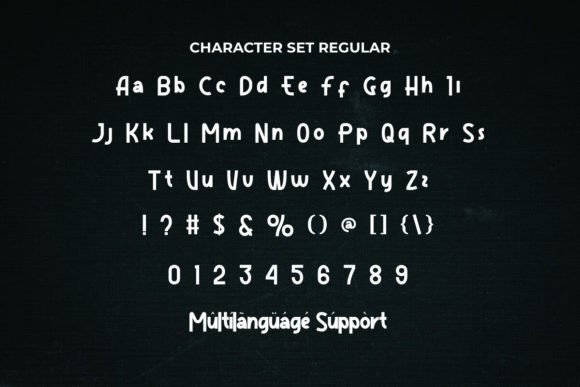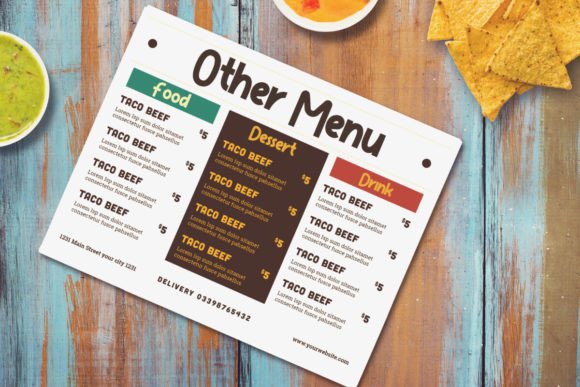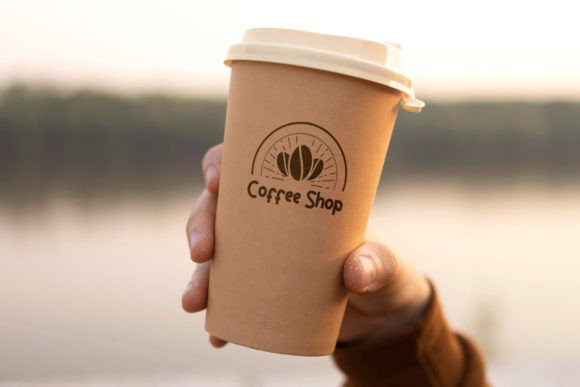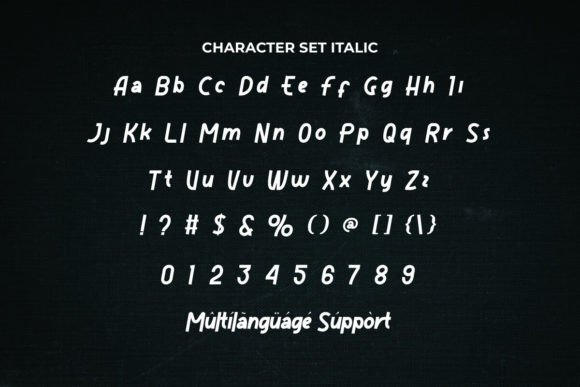
Introducing Always Find Font: A Playful Sans Serif for Creative Minds
Are you tired of using the same old fonts for your designs? Look no further! Always Find is a fresh and exciting sans serif font designed by EdricStudio that is sure to add a touch of fun and personality to your projects. With its unique and bold style, this font is perfect for designers and crafters looking to make a statement.
What Makes Always Find Font Special?
Always Find font is a playful sans serif font that boasts an unusual and fun look. Its distinctive style is sure to grab attention and set your designs apart from the rest. The font comes in two styles: Regular and Italic, giving you flexibility and versatility in your design choices.
Key Features of Always Find Font
- Bold and Unique Style: Each character in the Always Find font has a bold and unique style that is sure to make your designs stand out.
- Two Styles to Choose From: The font comes with two styles: Regular and Italic, allowing you to experiment with different looks and feels.
- Wide Range of Applications: Always Find font is perfect for a variety of projects, including comic books, branding, café menus, clothing brands, fast food restaurant menus, handicrafts, printing, publishing, school materials, tailor shops, toy stores, and many more.
Always Find font is a dream come true for designers and crafters looking to add a touch of personality to their work. Whether you’re creating a logo, brochure, or social media graphics, this font is sure to help you make a statement. Its bold and playful style makes it perfect for:
Comics and Illustrations
Always Find font is a great choice for comic book creators and illustrators looking to add a fun and dynamic touch to their work. Its bold style and unique character make it perfect for speech bubbles, captions, and titles.
Branding and Logo Design
For branding and logo designers, Always Find font offers a fresh and exciting alternative to traditional fonts. Its bold style and unique character make it perfect for creating memorable and eye-catching logos.
Café and Restaurant Menus
Always Find font is also perfect for café and restaurant owners looking to create menus that stand out. Its playful style and bold character make it perfect for creating fun and engaging menus that will appeal to customers.
Why Choose Always Find Font?
So why choose Always Find font for your next project? Here are just a few reasons:
- Unique and Bold Style: Always Find font offers a unique and bold style that is sure to make your designs stand out.
- Flexibility and Versatility: The font comes in two styles: Regular and Italic, giving you flexibility and versatility in your design choices.
- Easy to Read: Despite its bold style, Always Find font is easy to read, making it perfect for body text and captions.
In conclusion, Always Find font is a playful sans serif font that is sure to add a touch of fun and personality to your designs. With its unique and bold style, two styles to choose from, and wide range of applications, this font is perfect for designers and crafters looking to make a statement. So why wait? Download Always Find font today and start creating amazing designs that will leave a lasting impression!